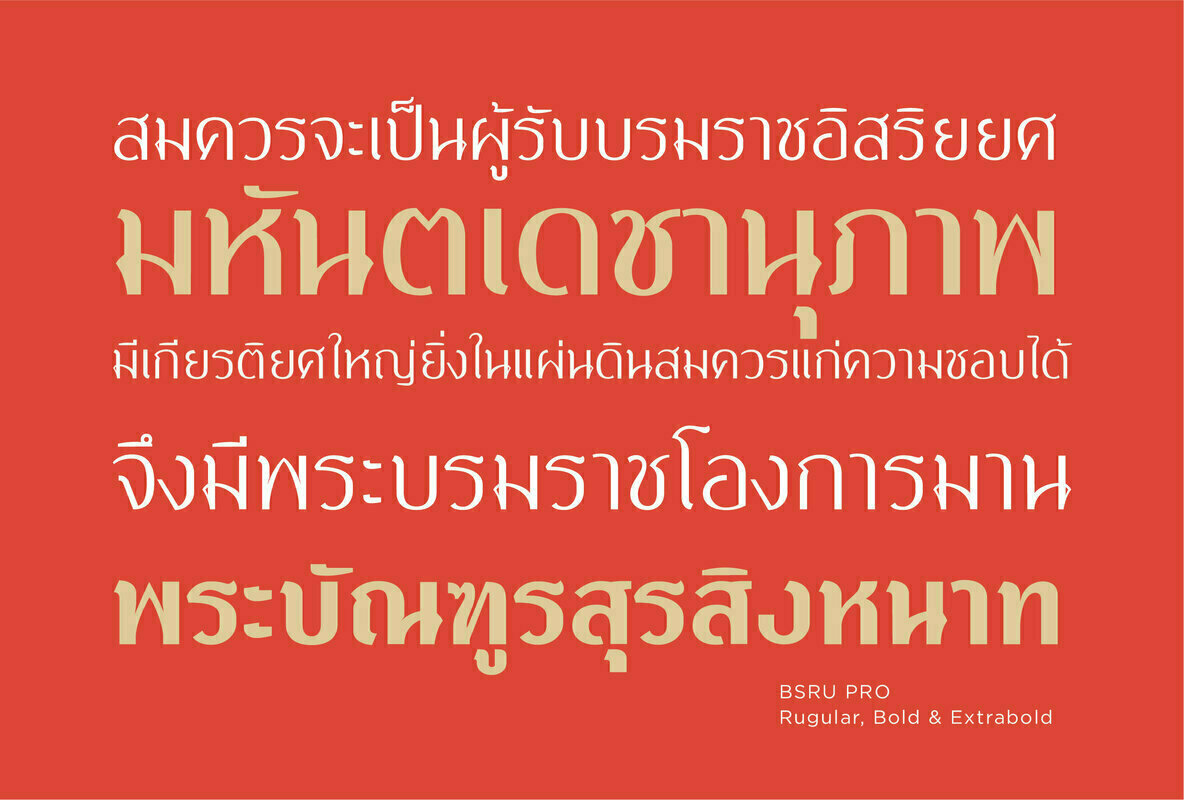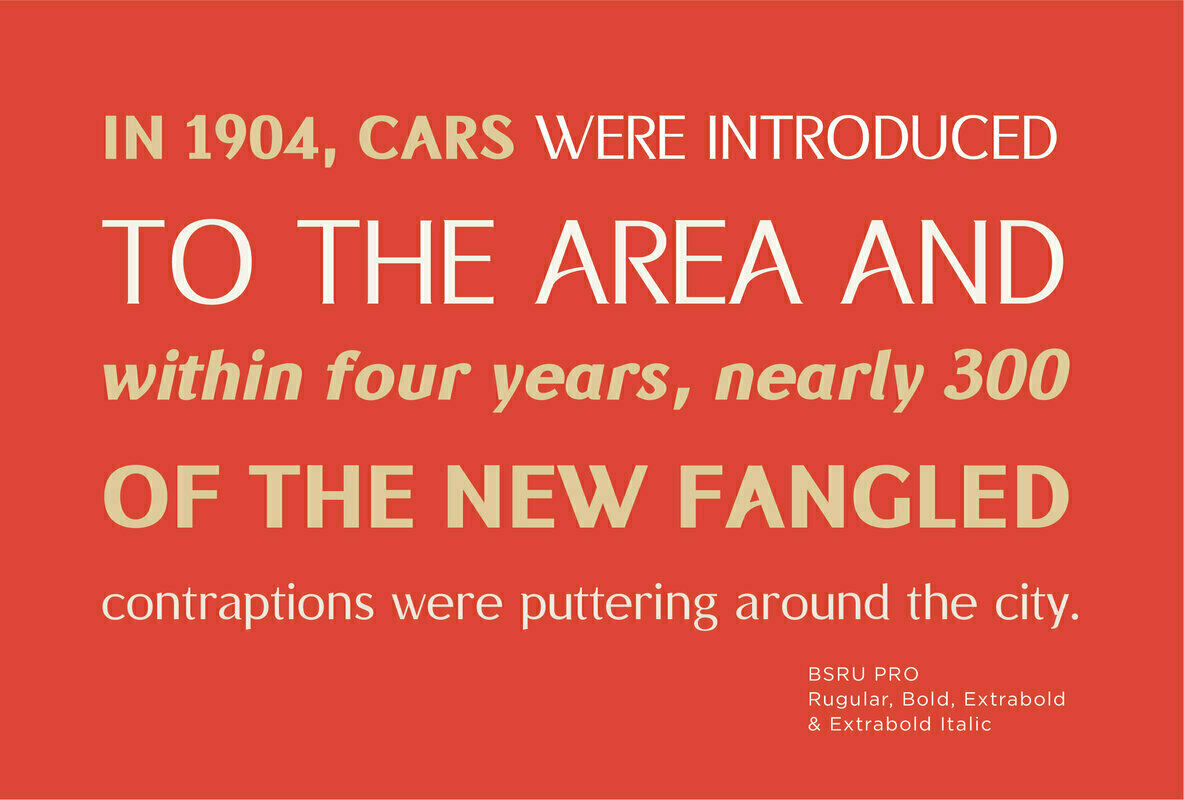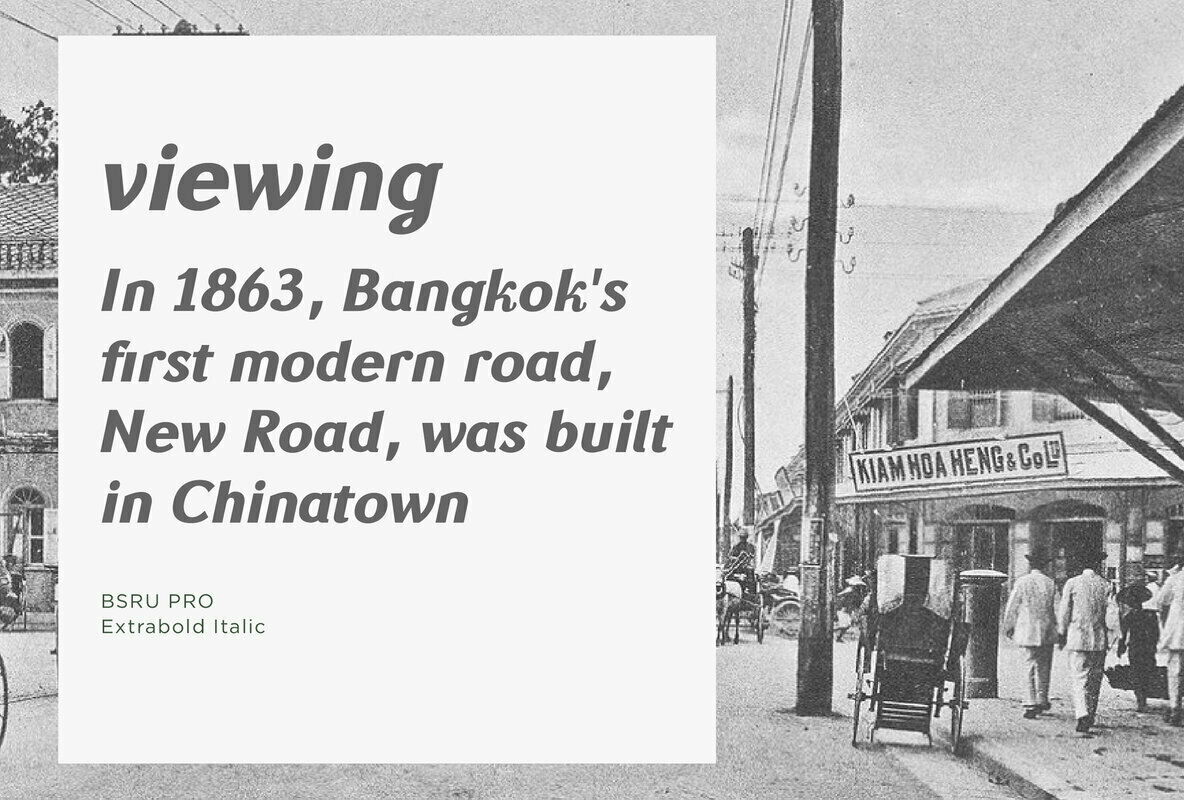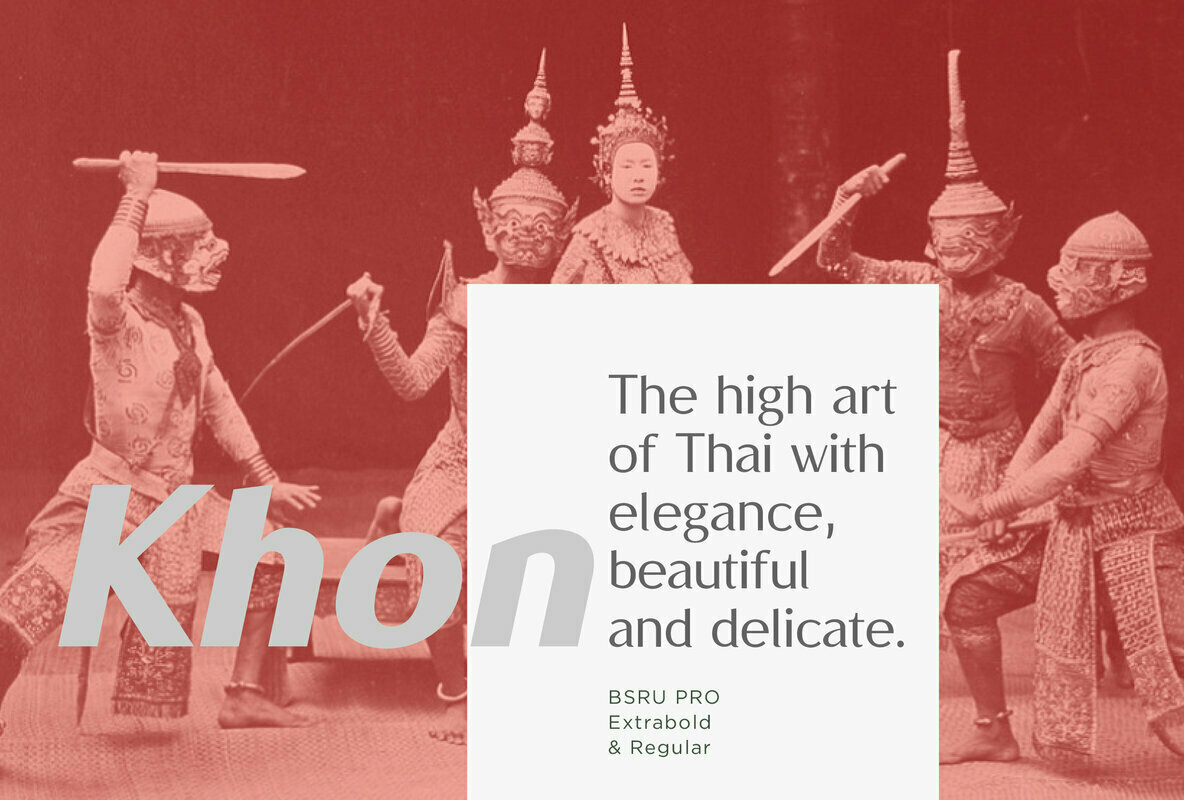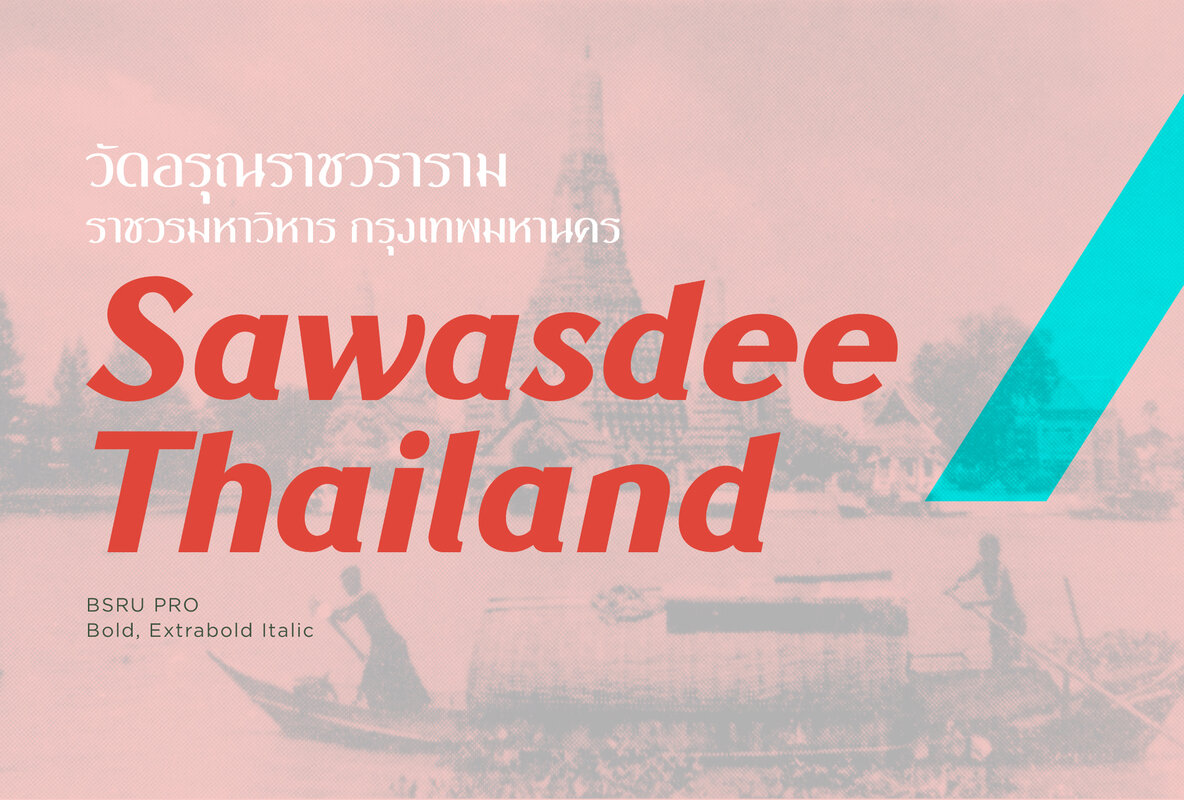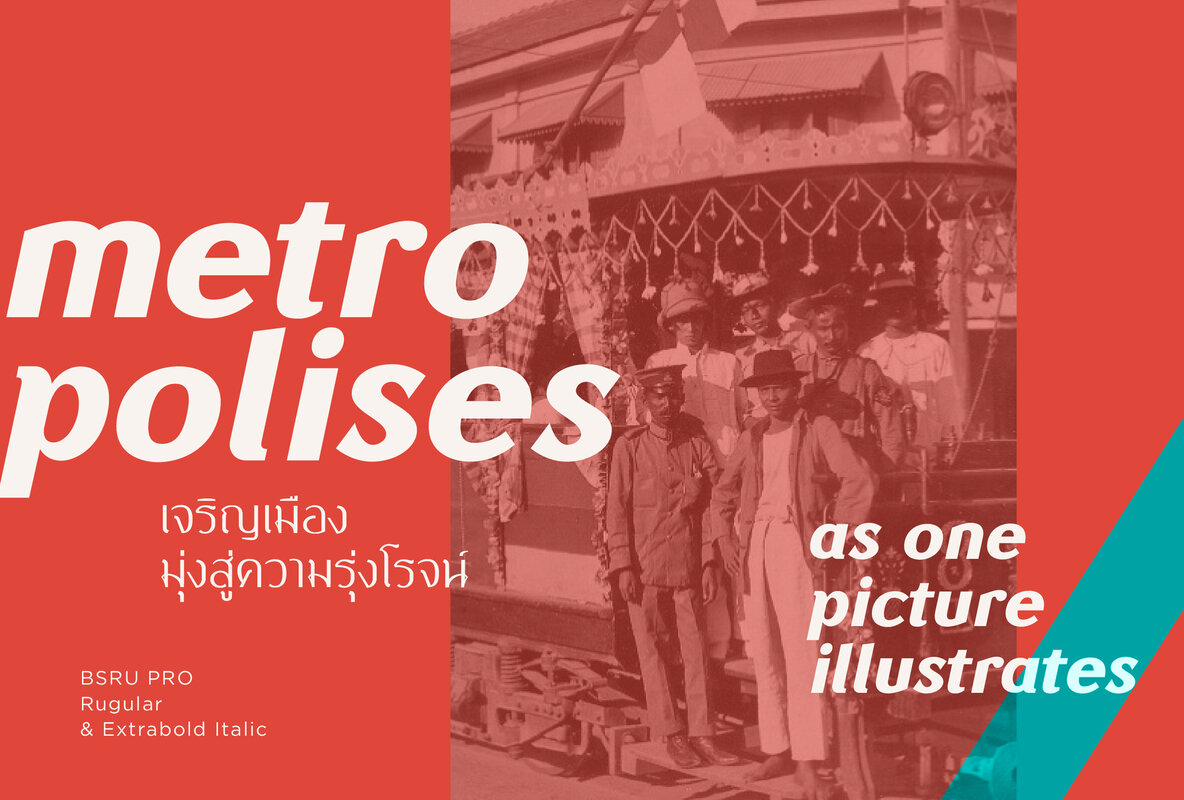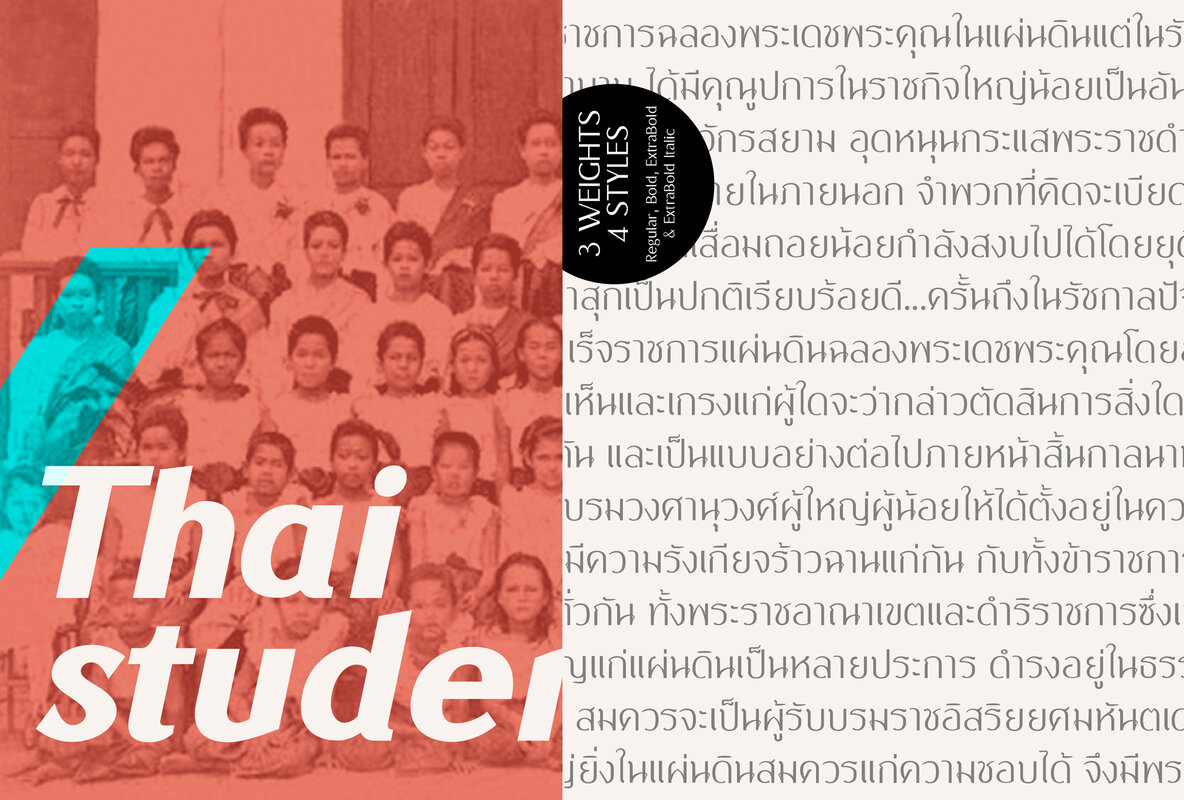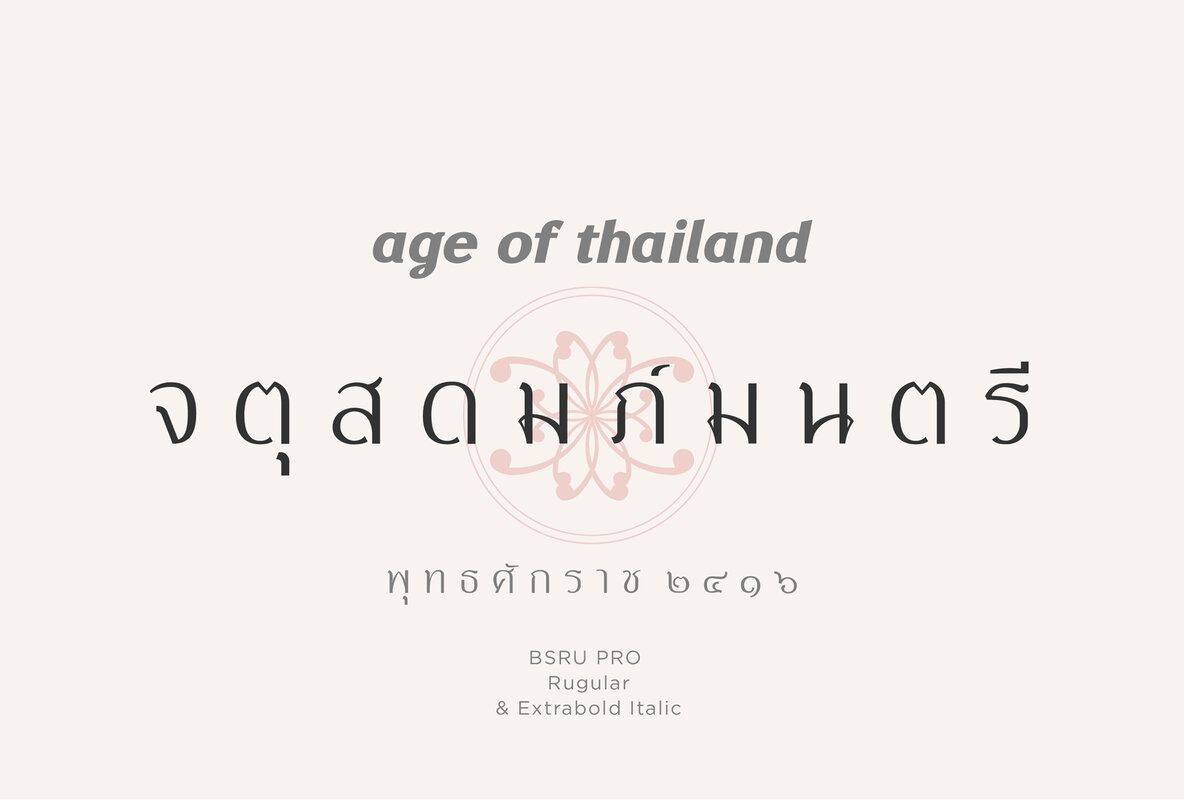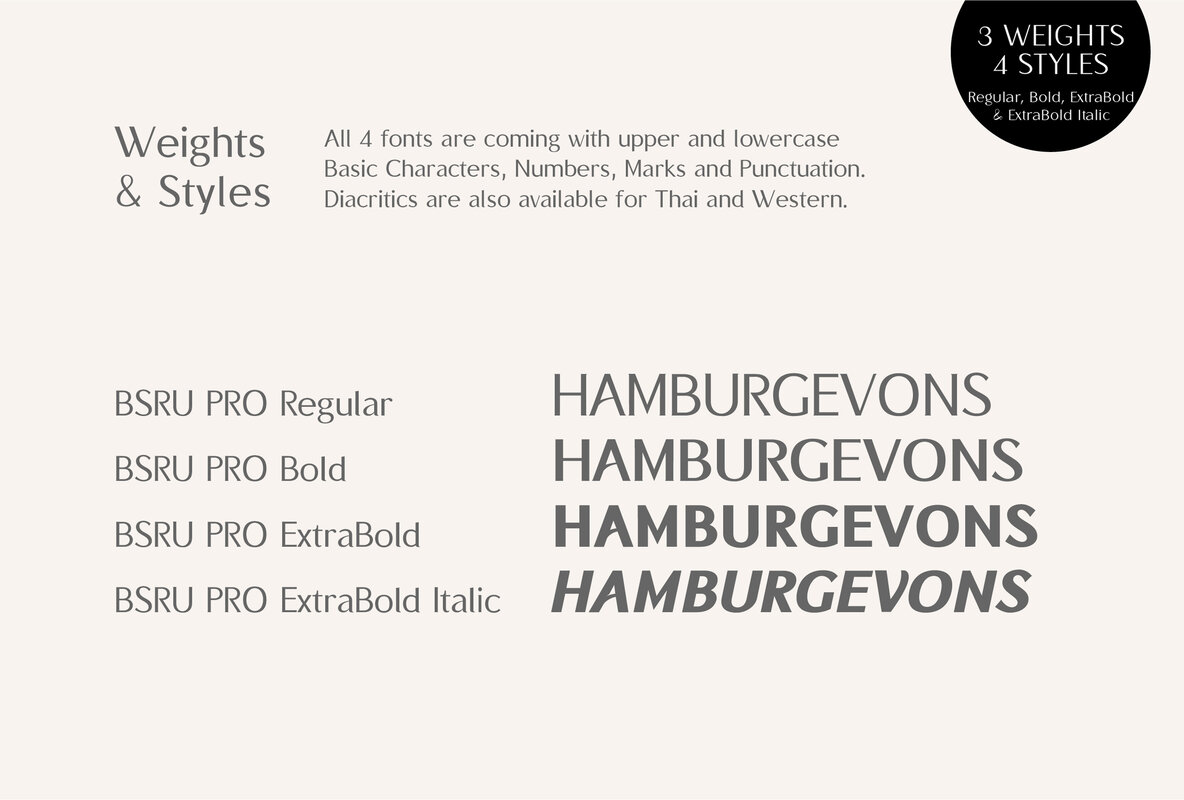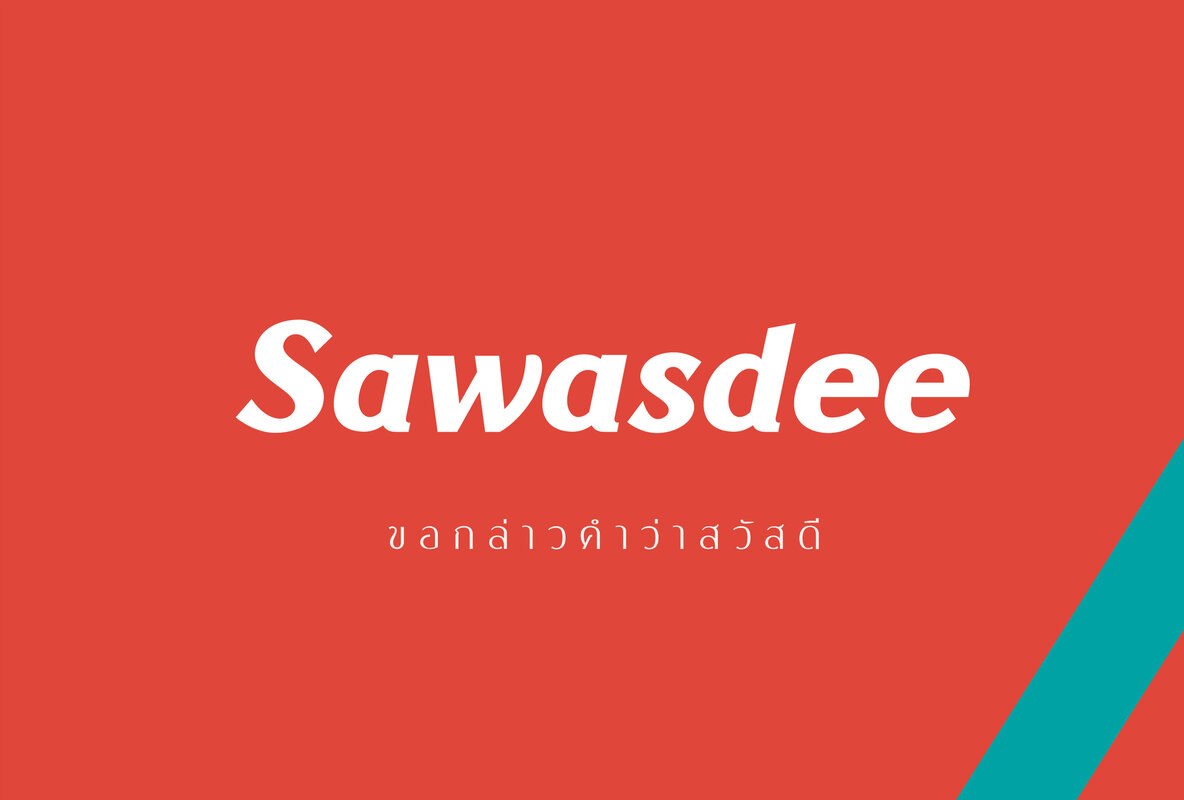
BSRU PRO Font
BSRU Pro is a modern, elegant font family. The design is referred to the modern sans serif style. The family also includes the 3 weights and 4 styles: BSRU PRO Regular, Bold, ExtraBold and ExtraBold Italic.